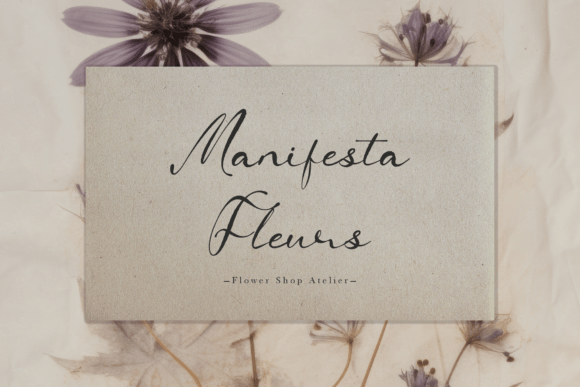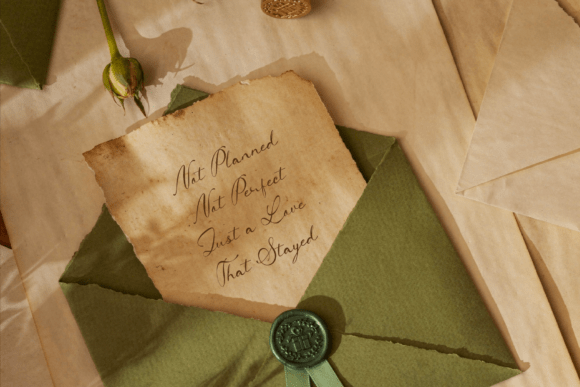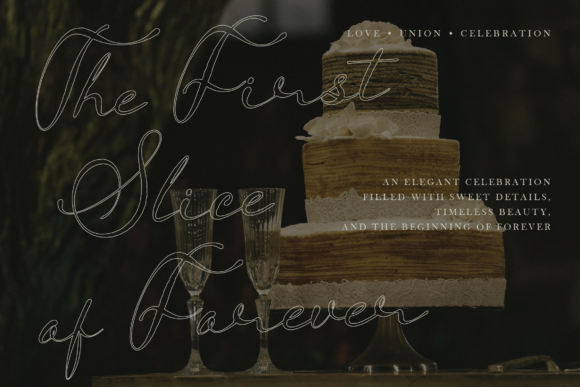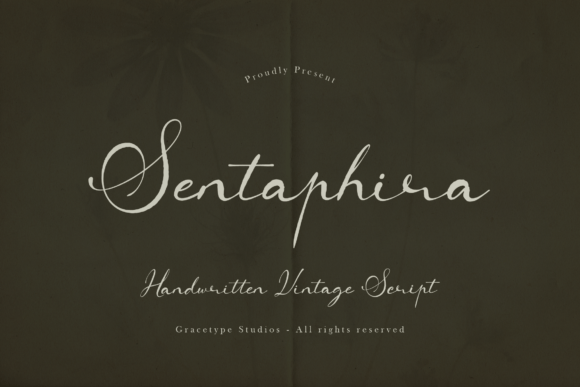
Introduction to Sentaphira Font
Capture the timeless beauty of a bygone era with Sentaphira, a Handwritten Vintage Script that balances sophisticated grace with organic movement.
Featuring fluid, expressive loops and a delicate, fine-liner weight, this font brings an authentic, personal touch to your high-end design projects Sentaphira is designed for moments that require a signature lookβ€”whether it’s the centerpiece of a wedding invitation or a subtle, chic watermark for a lifestyle brand.
Key Features of Sentaphira Font